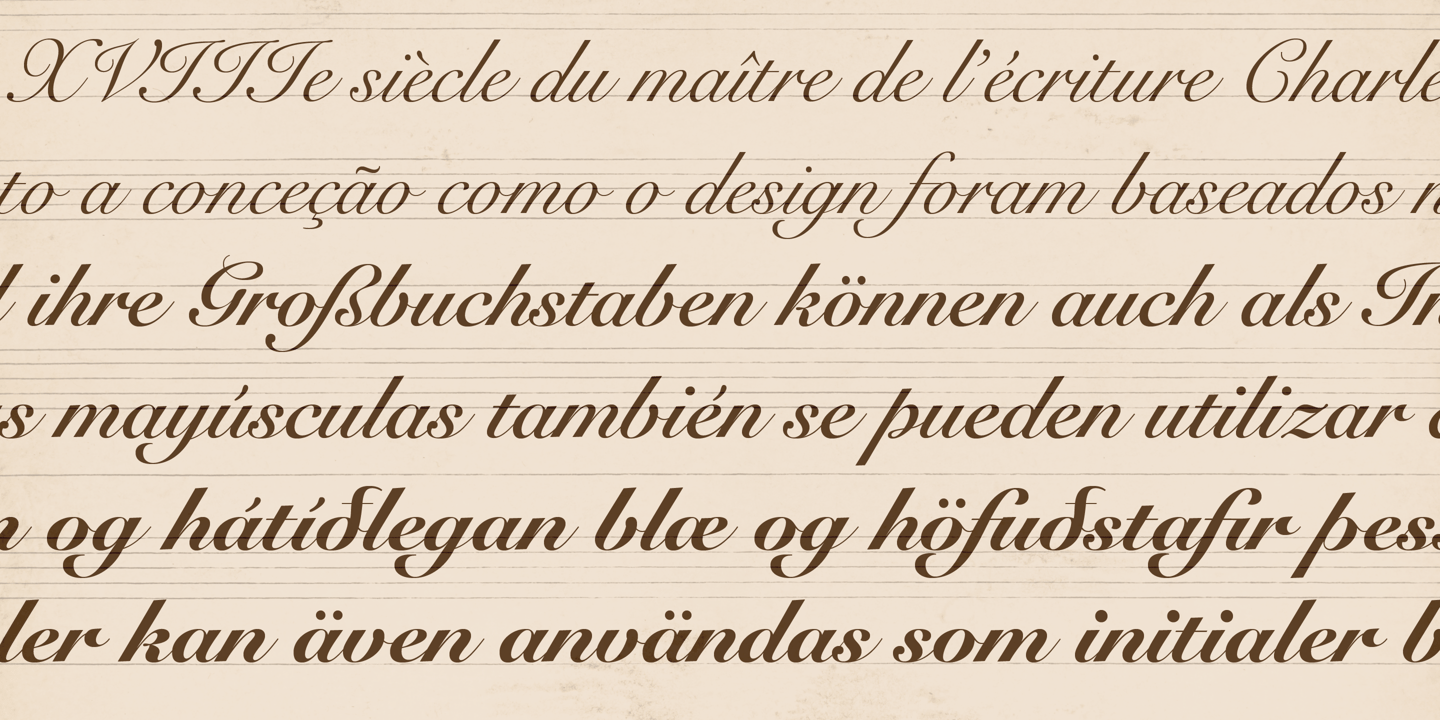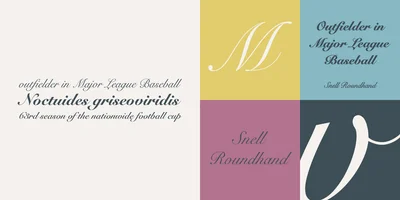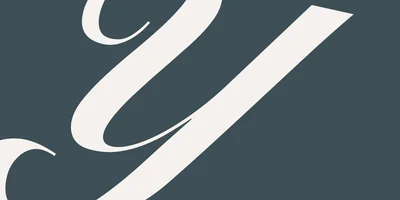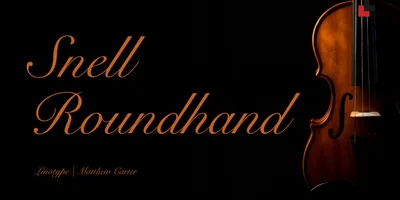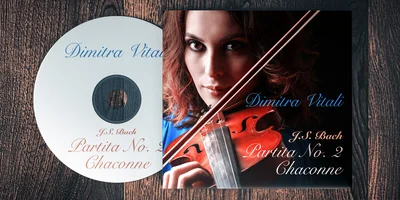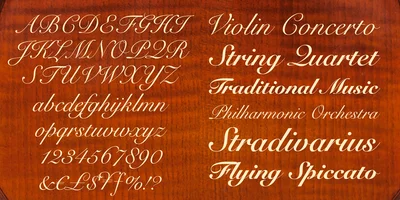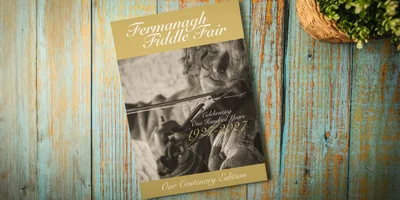
Brush Script vs Snell Roundhand
Brush Script and Snell Roundhand are both display typefaces sharing a script foundation. Where Brush Script leans warm, retro, Snell Roundhand brings formal, elegant. Compare which suits your Invitations project.
Recommended: Brush Script
- warm, retro design character
- Suited for Casual and Retro
Consider: Snell Roundhand
- formal, elegant design character
- Suited for Formal and Luxury